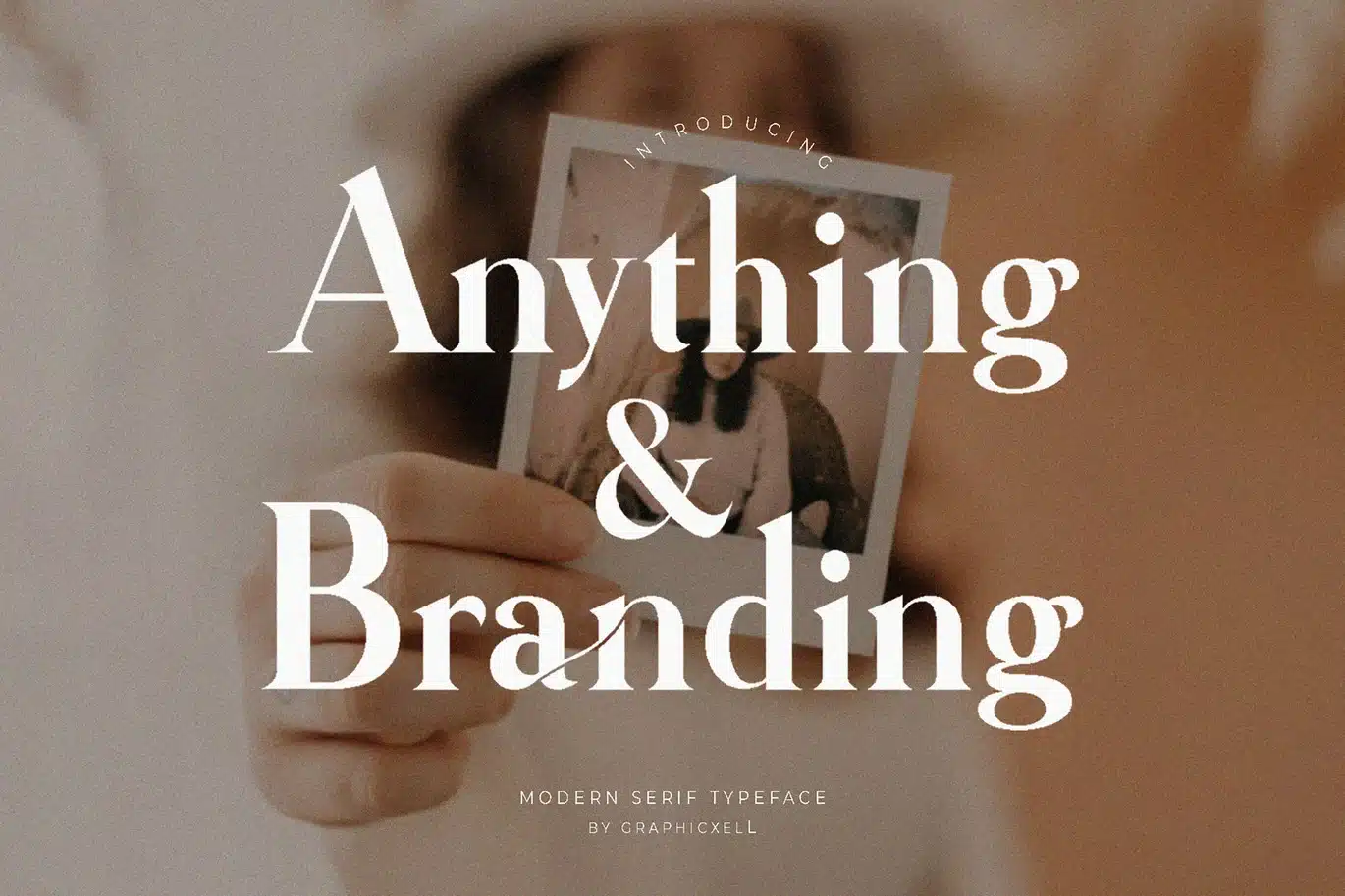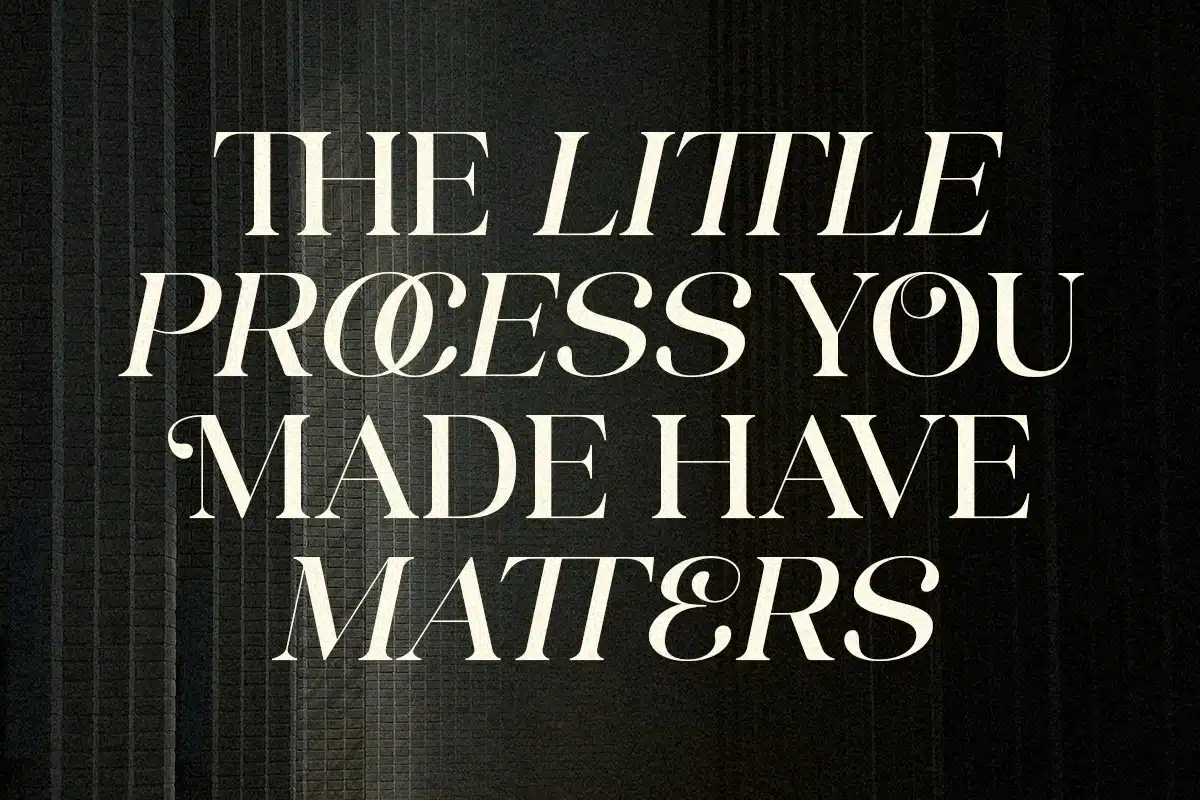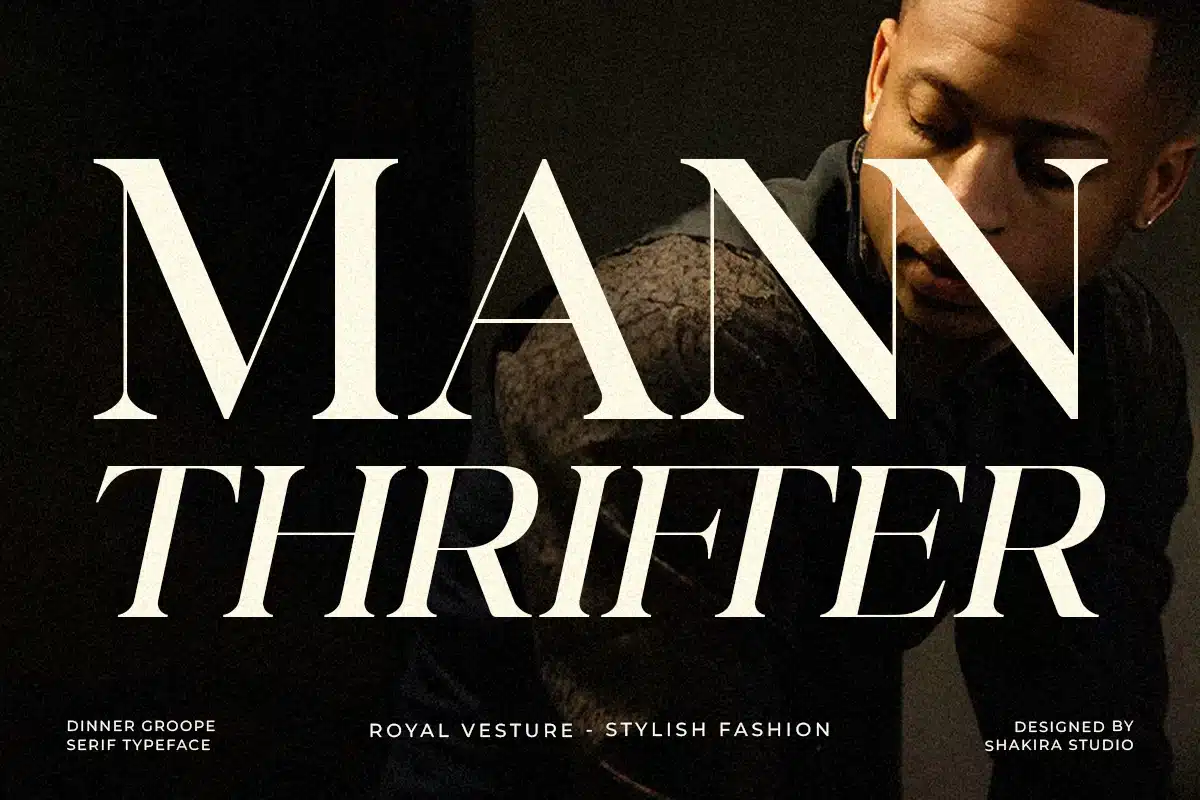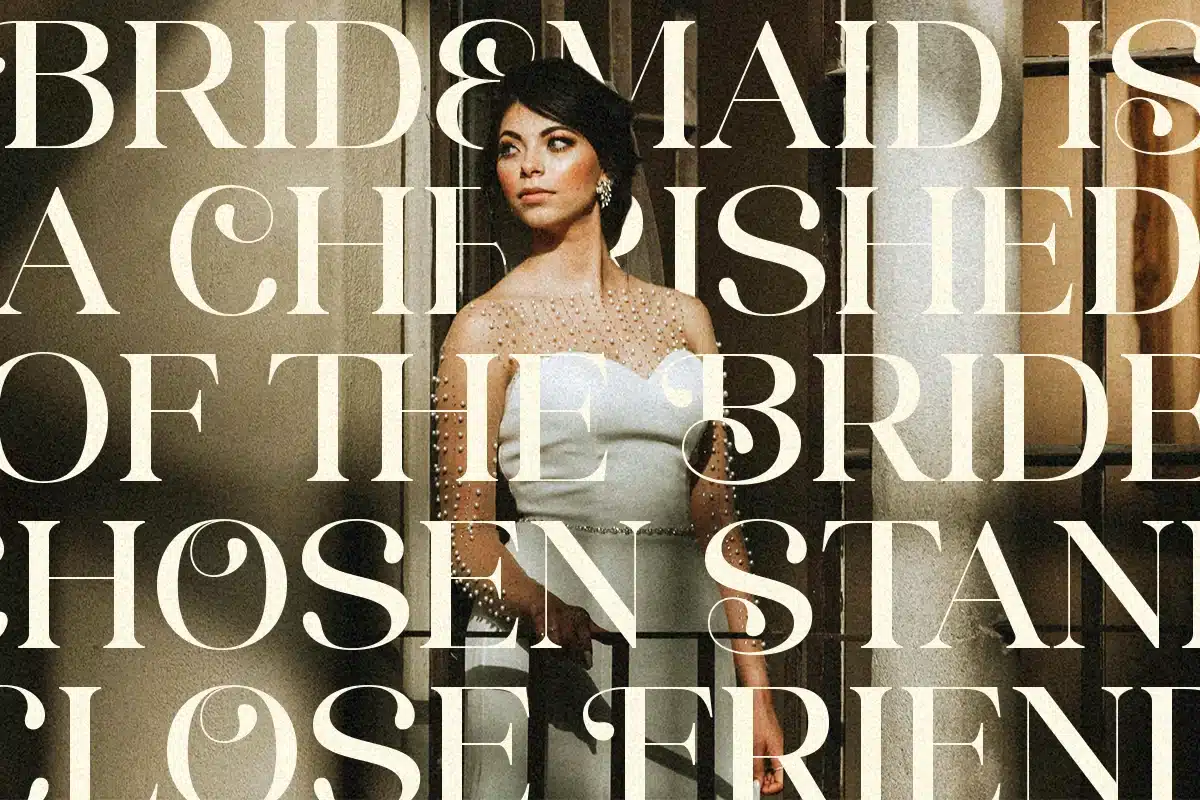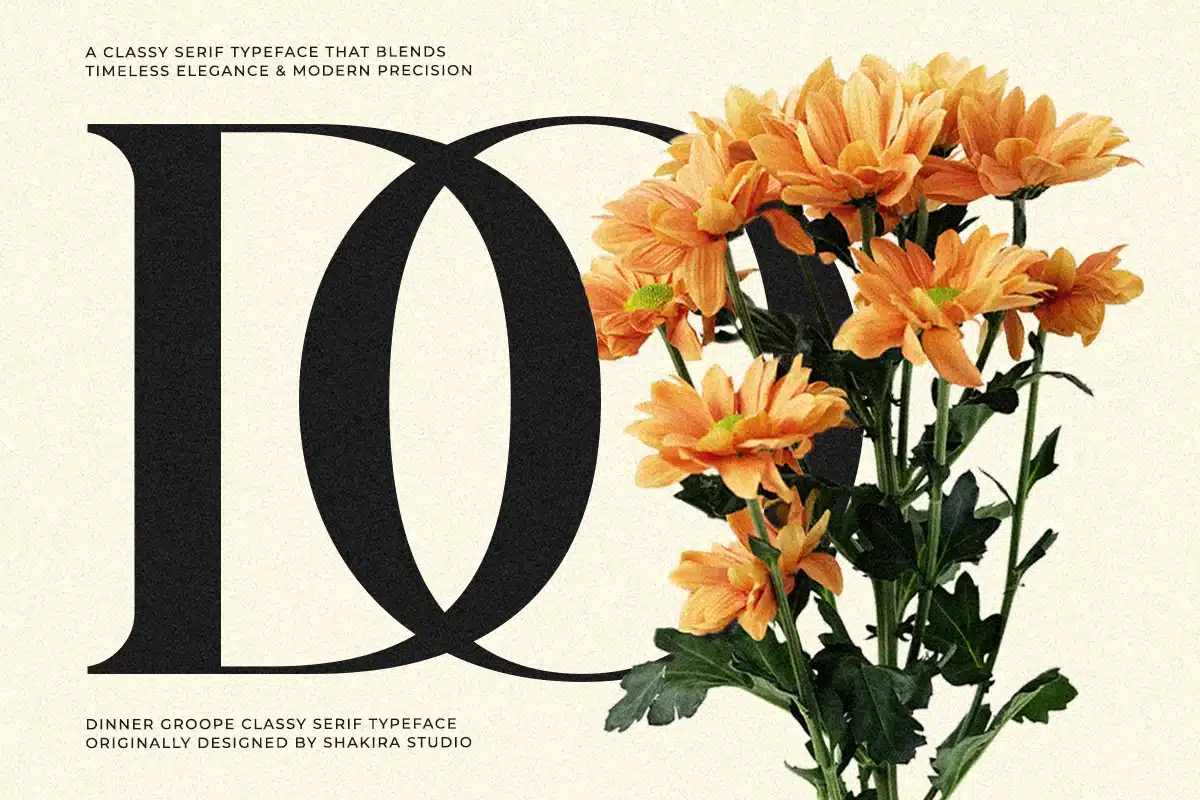
Dinner Grope – Modern Elegant Luxury Logo Font
Introducing Dinner Grope – a luxurious serif typeface with a balanced touch of modern flair and timeless class.
Its beautifully exaggerated serifs and subtle decorative curves bring out a bold personality that’s elegant yet experimental. Perfect for those who design with taste and confidence.
Whether you're crafting a brand that demands sophistication or designing editorial work that speaks prestige, Dinner Grope brings that upscale visual presence.
This typeface blends seamlessly in creative directions that require both expressive flair and classic readability.
Font Features
- Uppercase & lowercase
- Numbers & punctuation
- Alternates & classy ligatures
- Regular & italic styles
- Premium branding & logo design
- Fashion magazines & lookbooks
- Editorial titles & packaging
- Beauty brands & cosmetics labels
- Luxury website headers
- Invitation designs & event materials
Add sophistication to every visual with Dinner Grope – where form meets finesse.